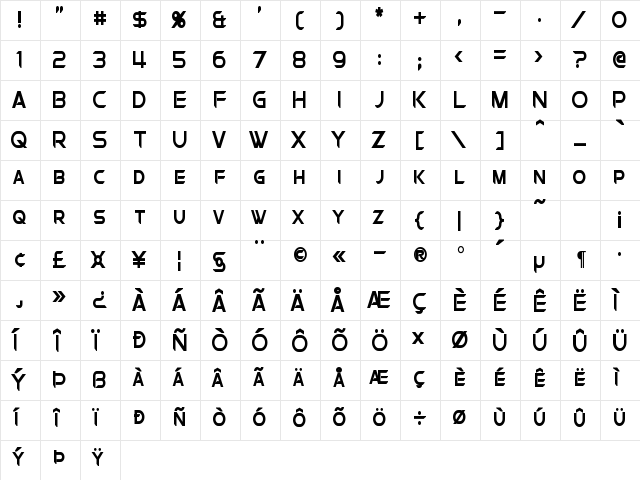
Chromia Supercap Condensed Bold
Design Context for Chromia Supercap Condensed Typeface
Chromia Supercap Condensed is a composed and adaptable typeface that performs quietly and consistently across a wide range of design contexts. Its bold stroke weight gives it real presence on the page. Its narrow stance lets it pack a punch even in space-constrained designs.